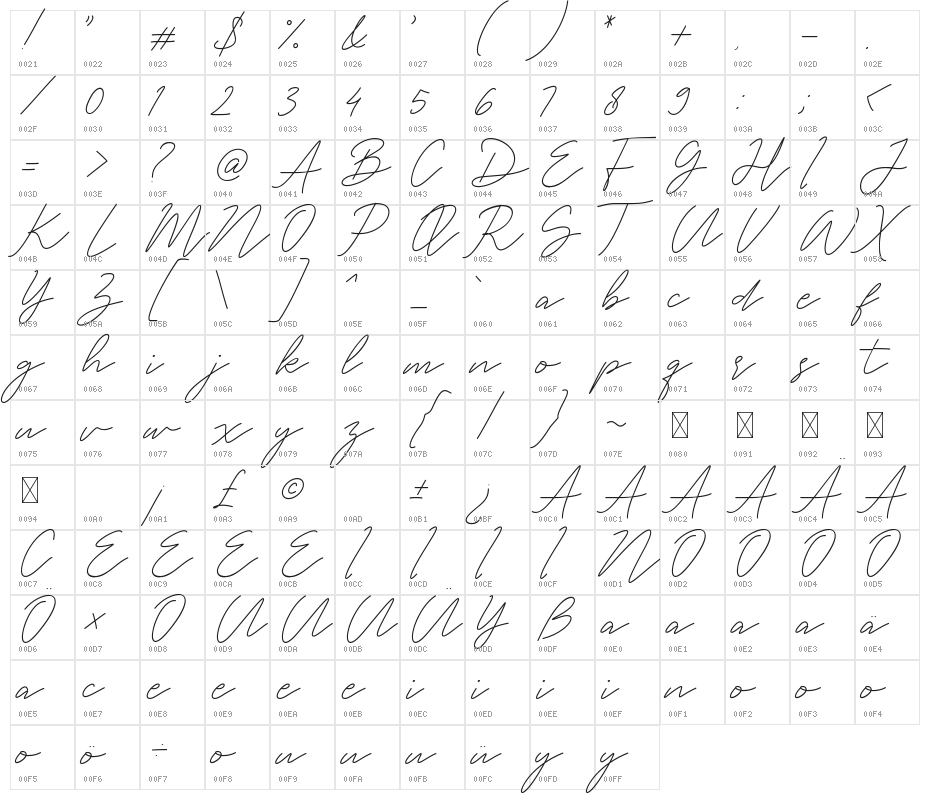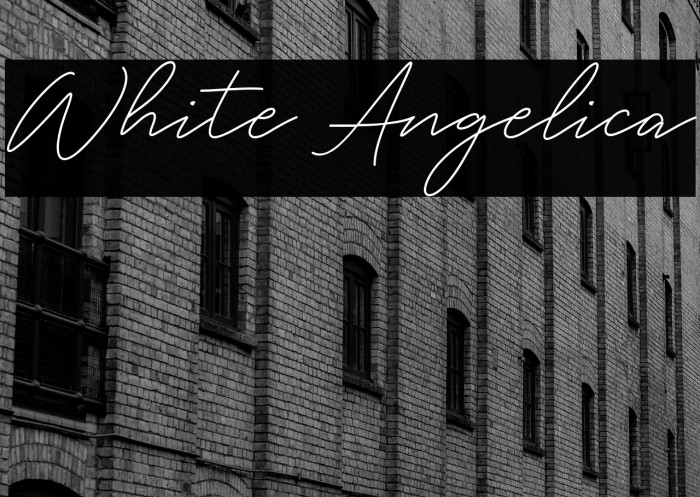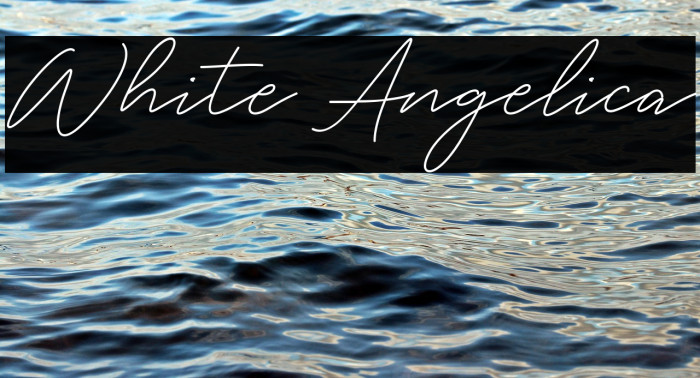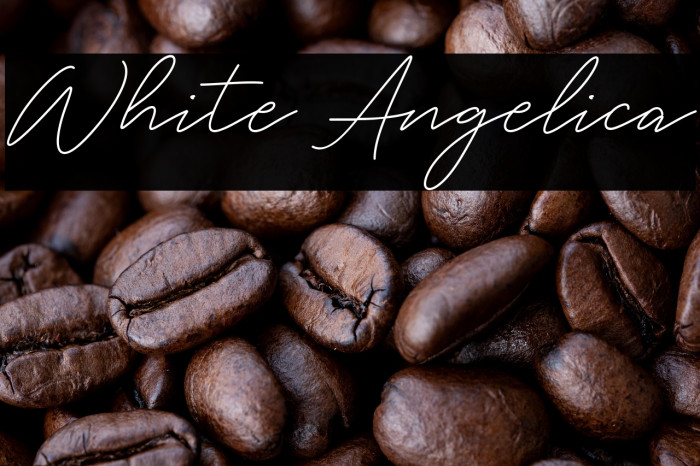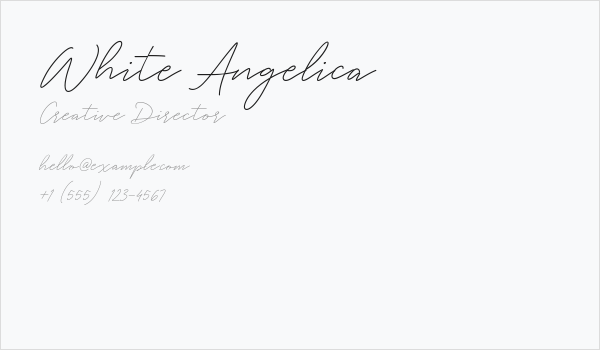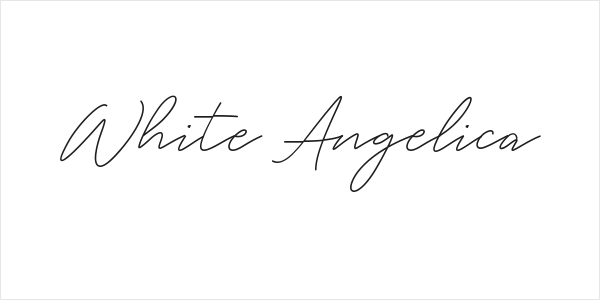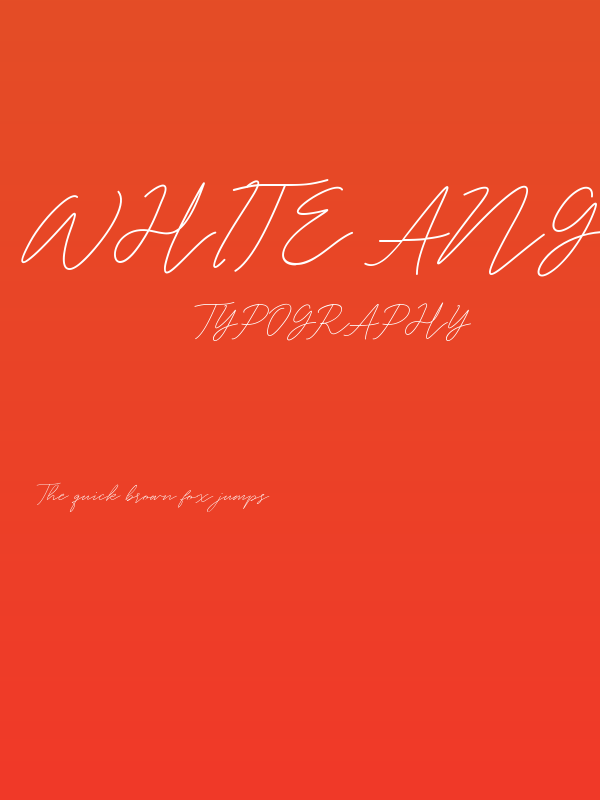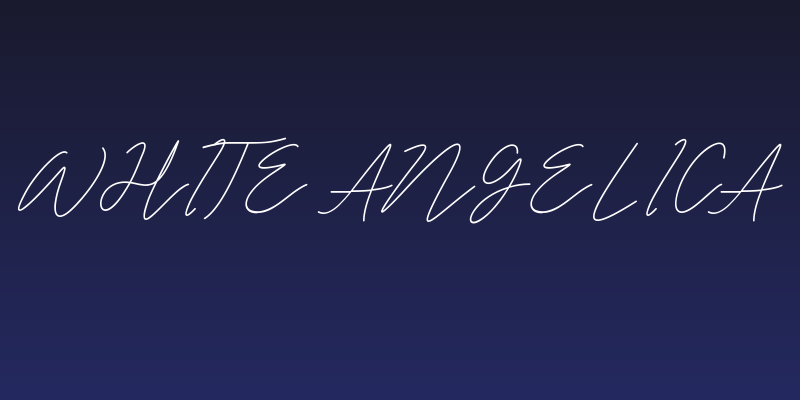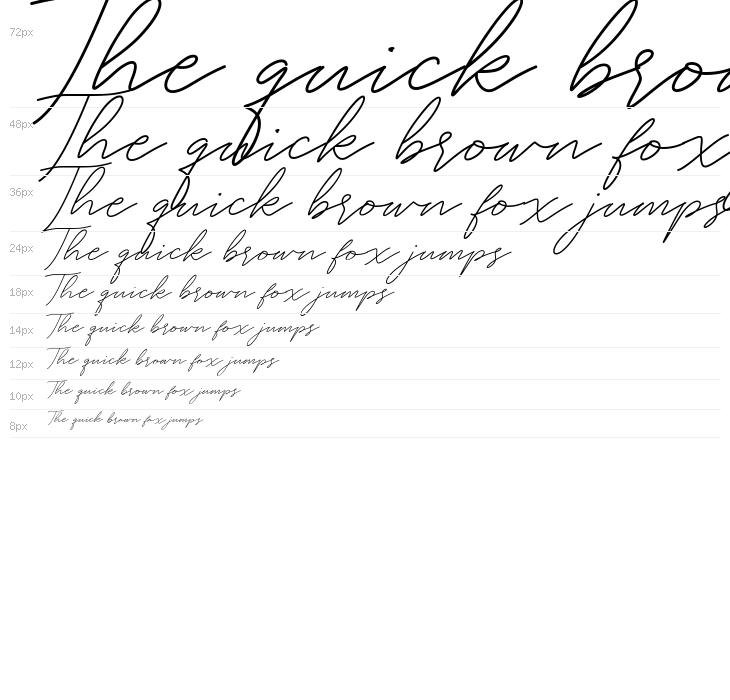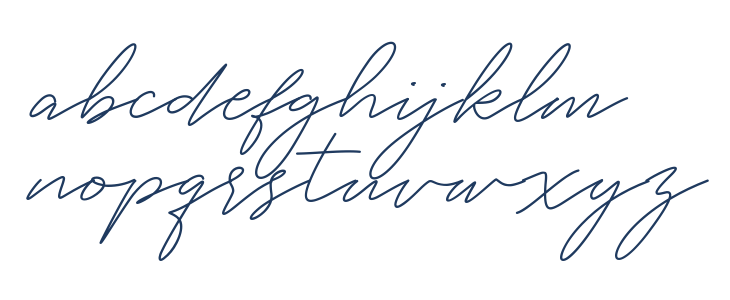
White Angelica Font
White Angelica Description
This elegant script font features a flowing, cursive style with smooth, connected strokes that emulate the fluidity of handwriting. The uppercase letters are tall and graceful, with a slight slant that adds a sense of motion. The lowercase characters are equally fluid, with loops and curves that create a harmonious rhythm. The numerals are consistent with the overall style, maintaining the same elegant curves. Special characters are designed to complement the script, ensuring a cohesive look across all text. This font exudes sophistication and charm, making it ideal for projects that require a personal touch.
| Overall Style | Elegant, Sophisticated |
| Proposed Projects | Ideal for wedding invitations, greeting cards, personal branding, and elegant stationery. |